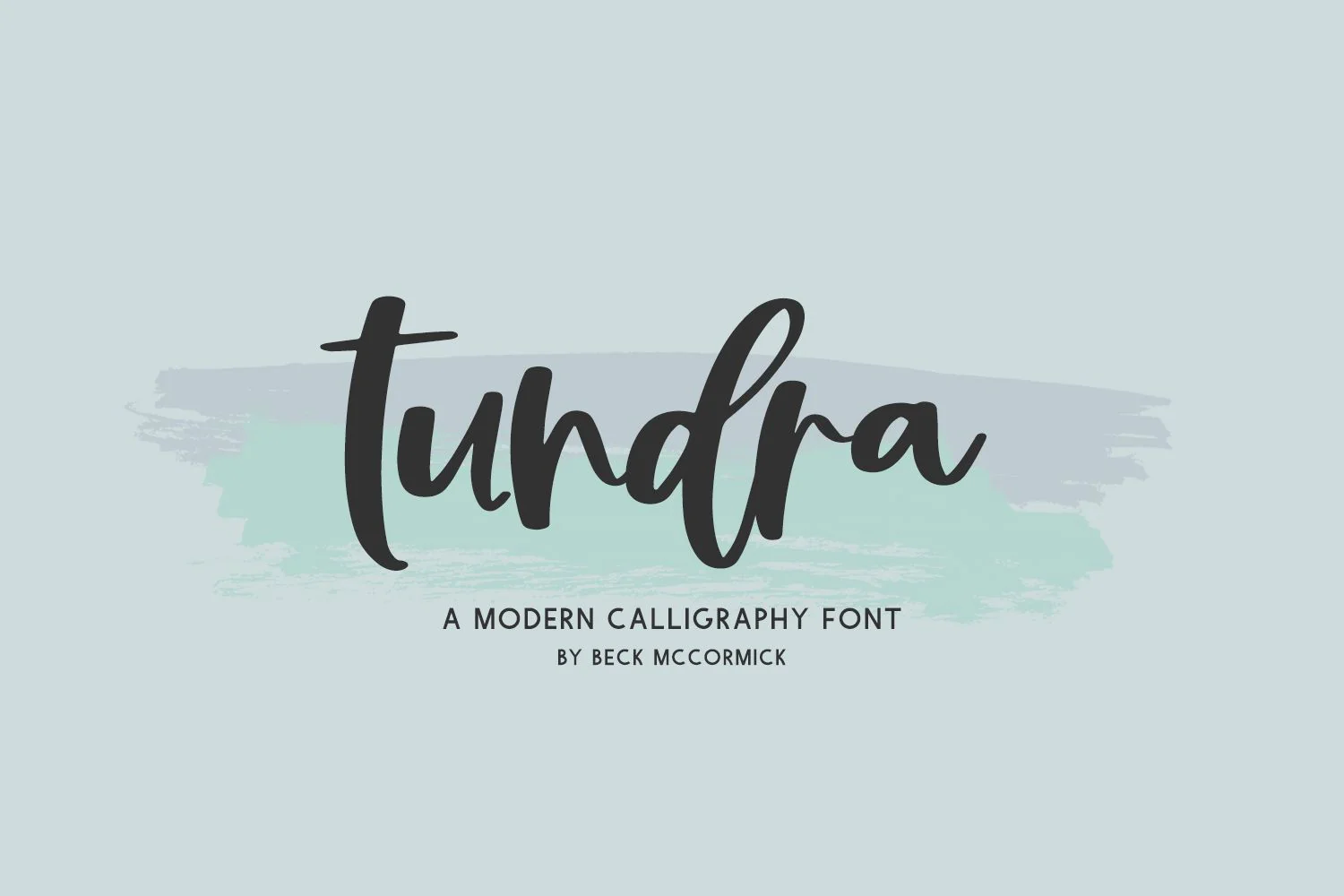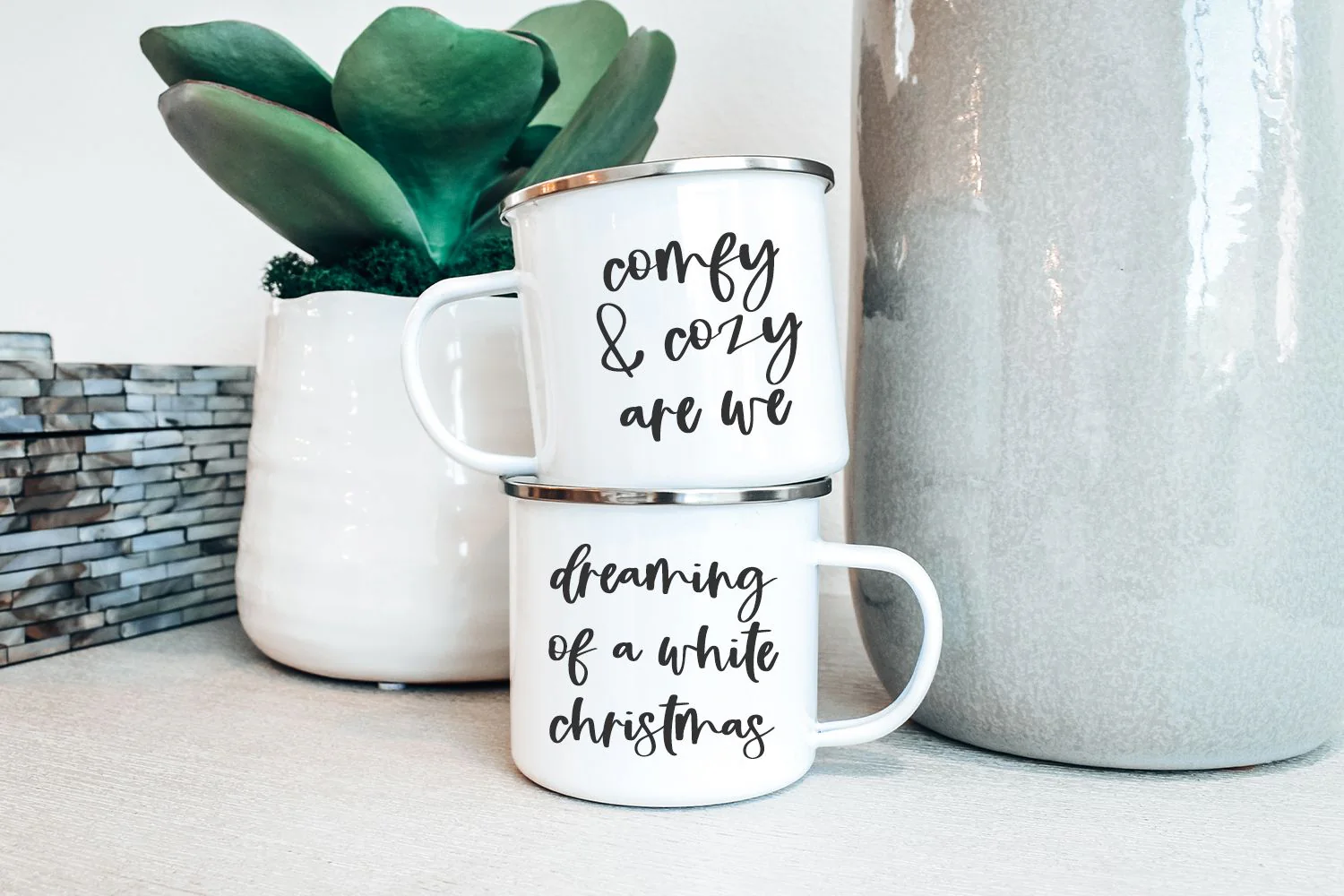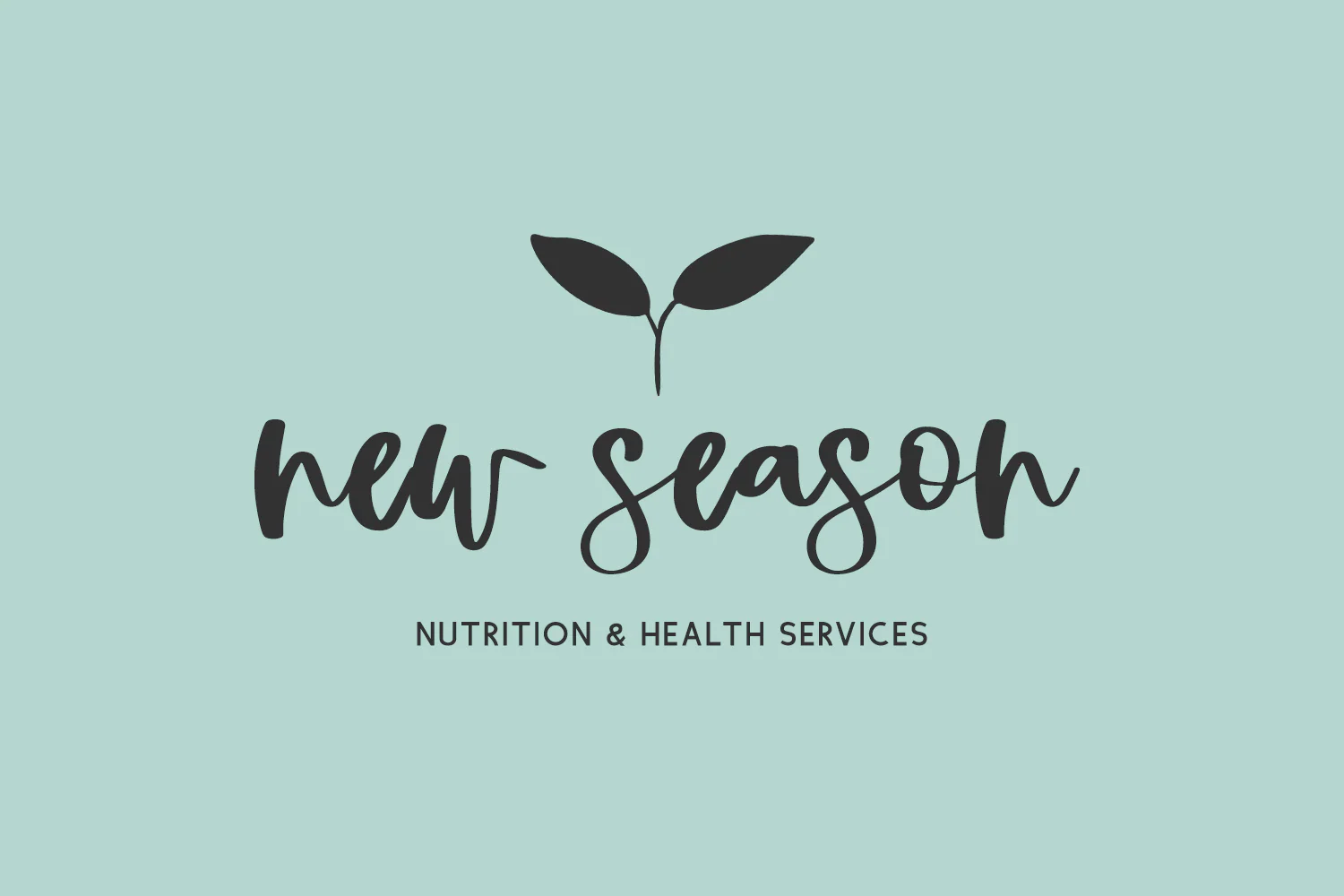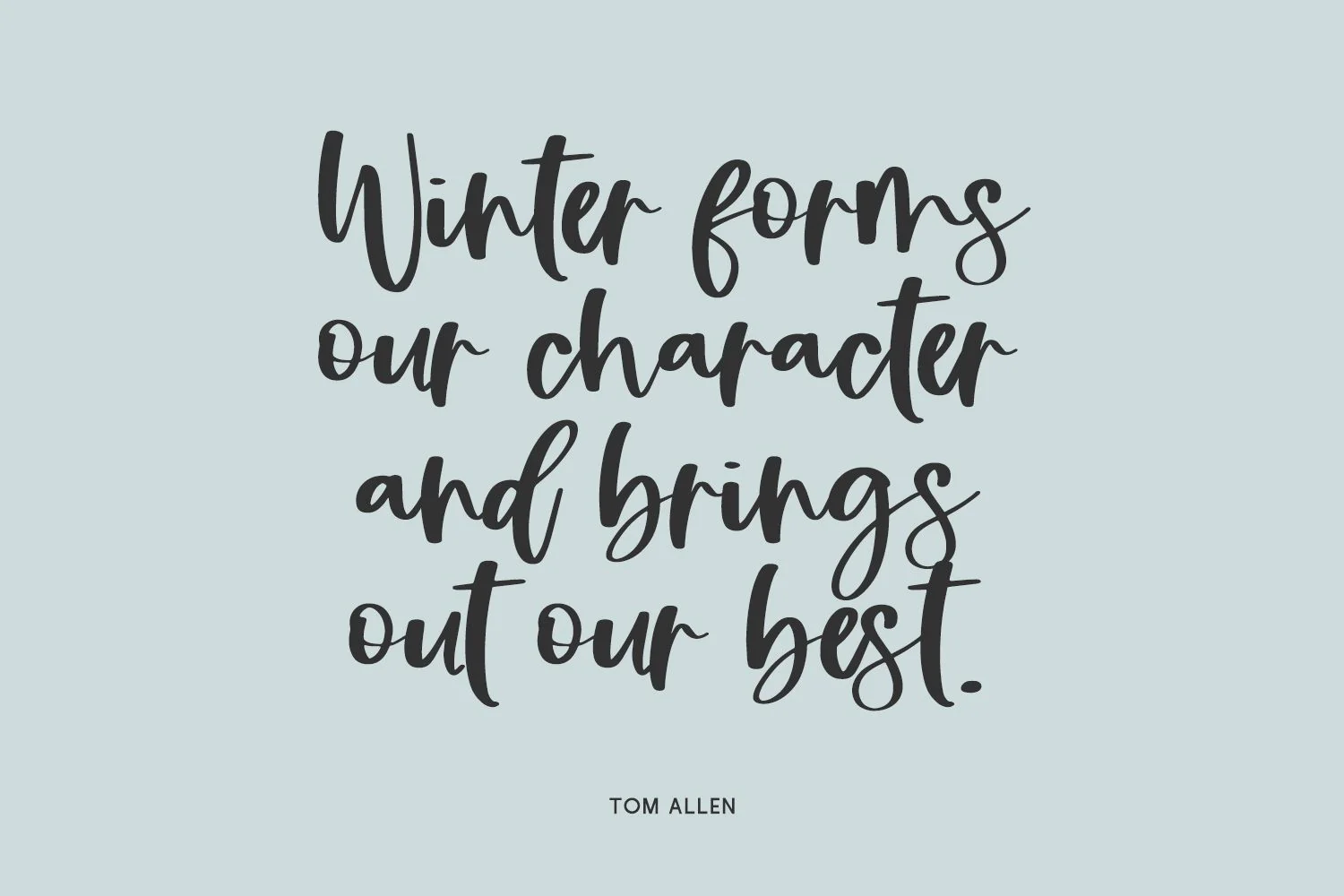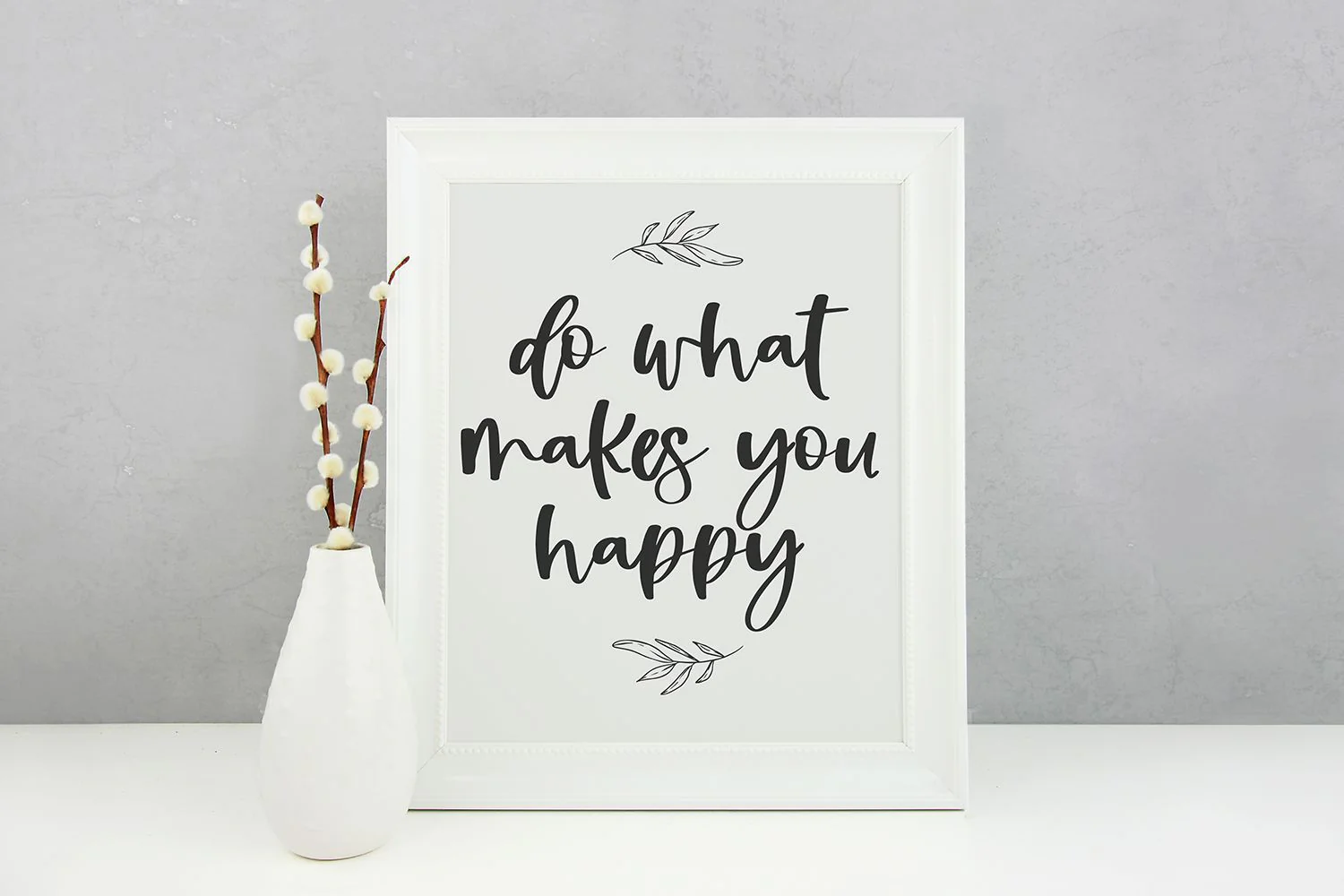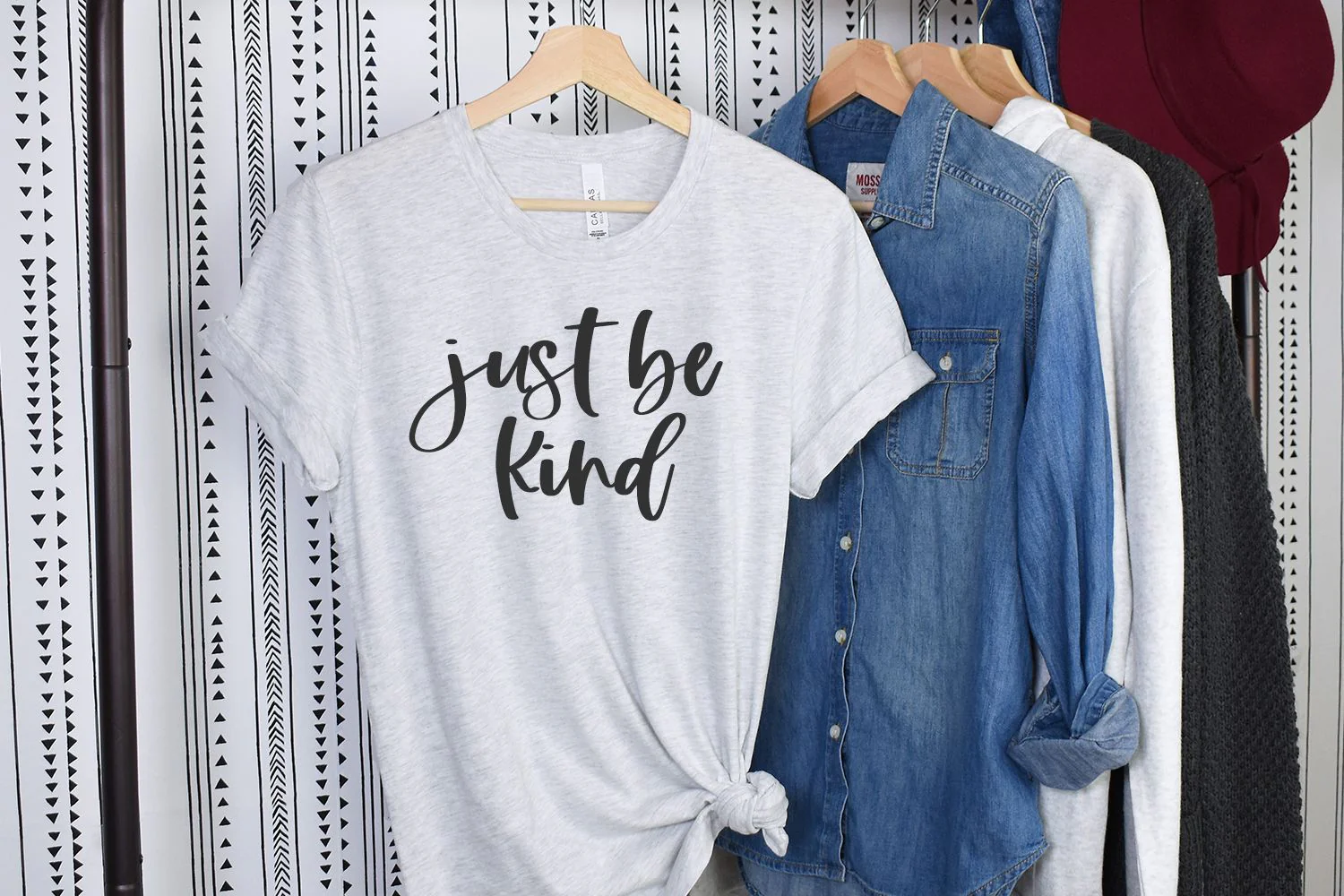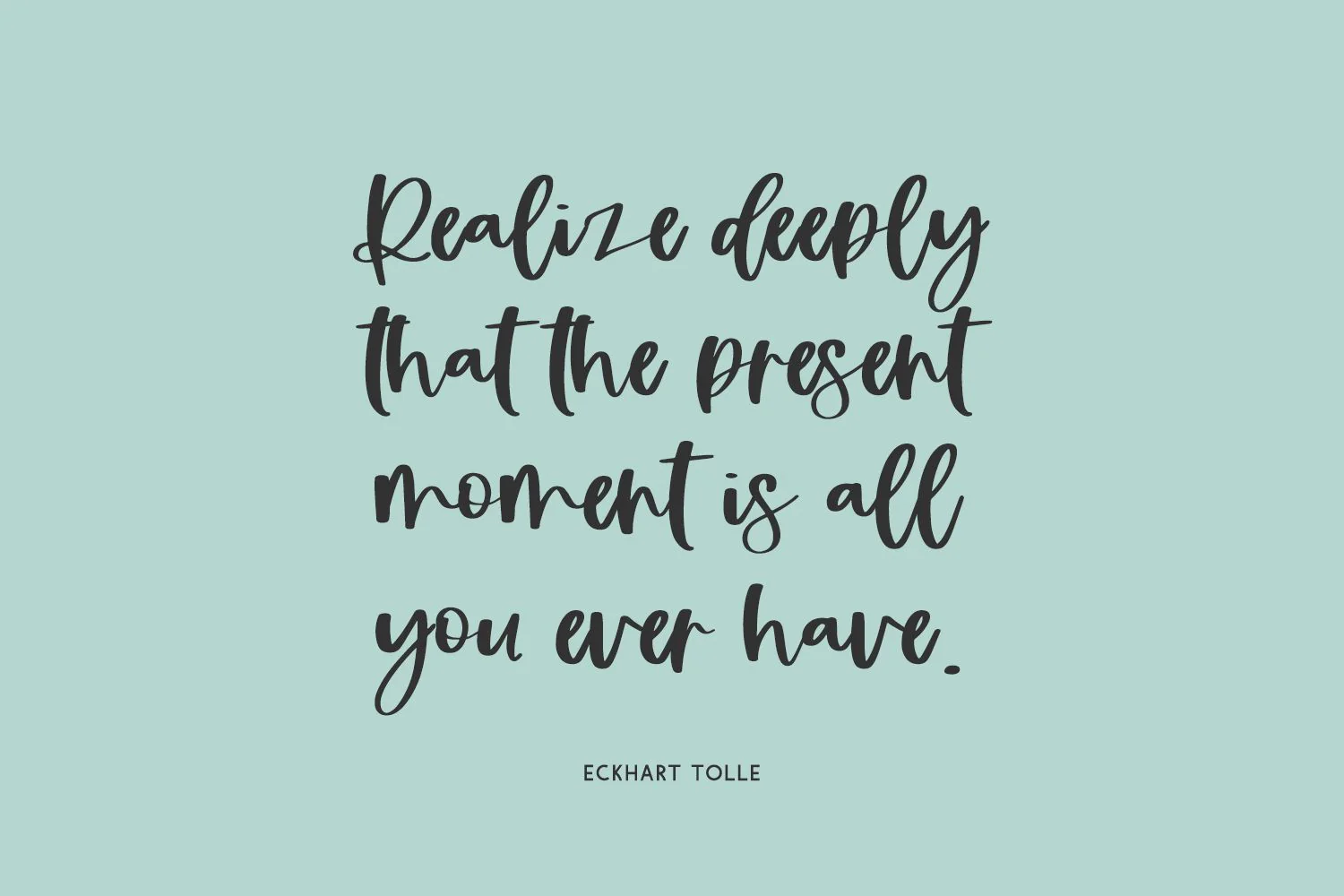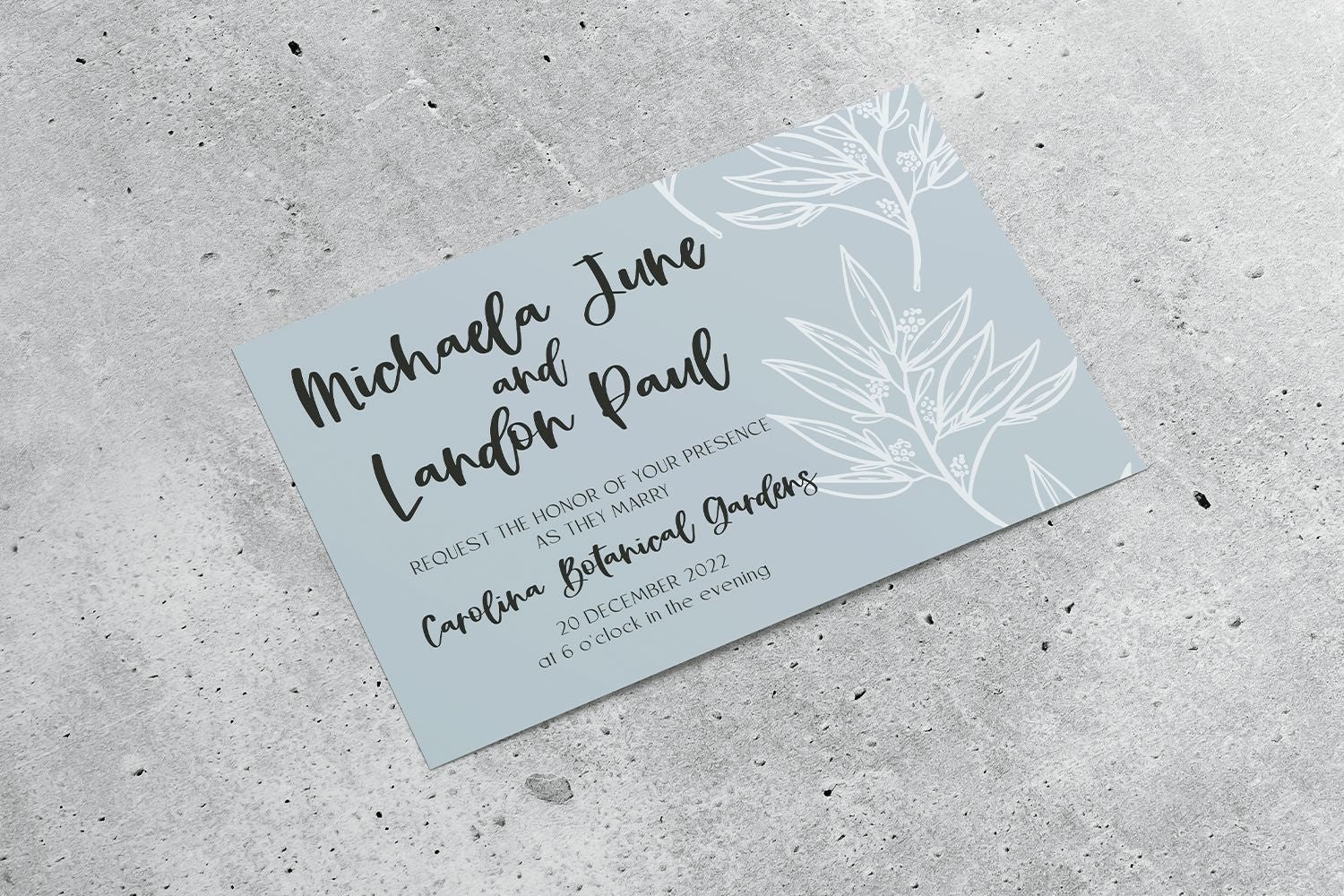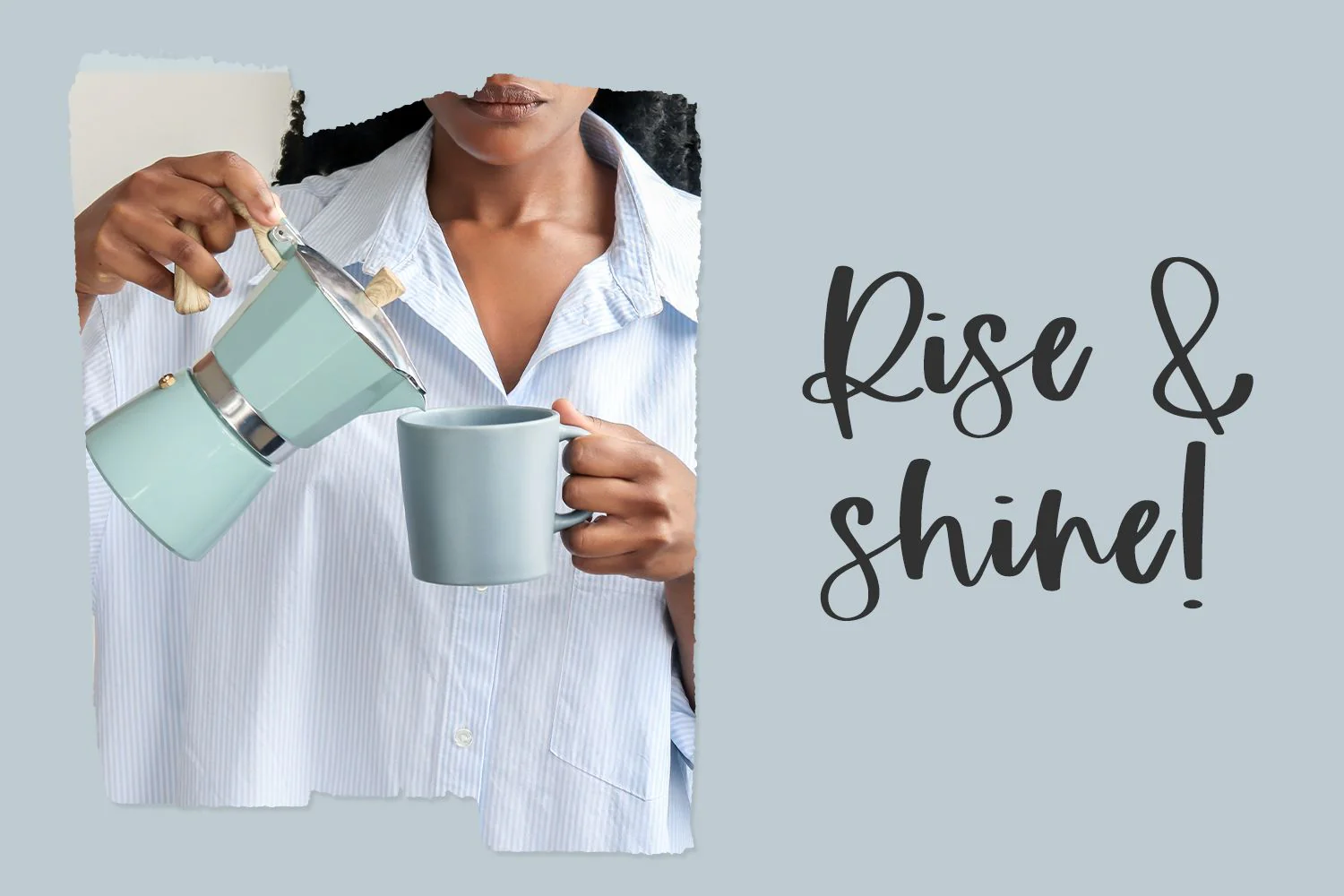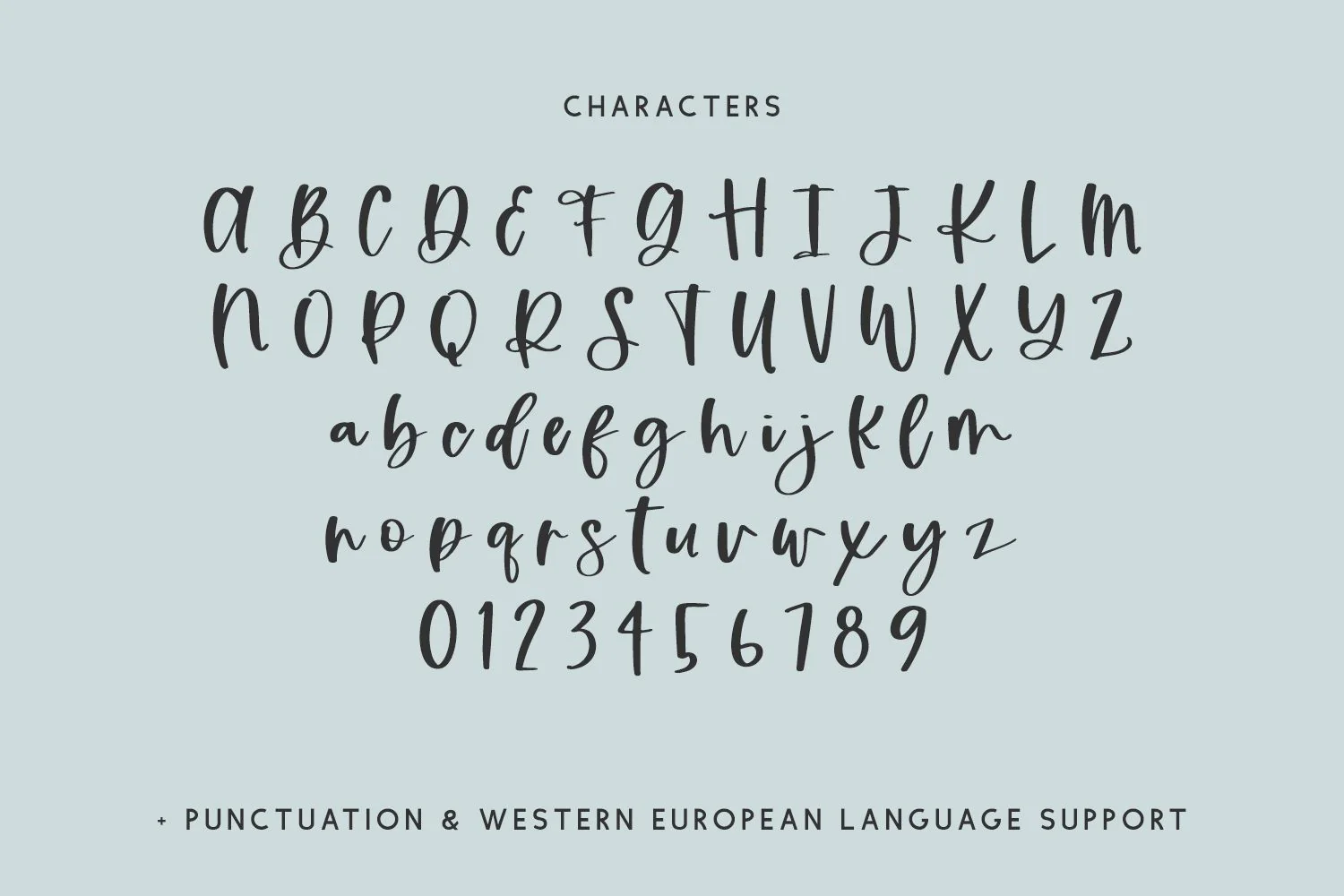
Tundra Script Font
Introducing Tundra, a bouncy modern calligraphy script perfect for crafting & cute farmhouse projects.
Tundra is best for:
- using as a reference to teach handwriting & penmanship skills with a bit of bouncy modern calligraphy flair
- feminine, crafty projects with your Cricut or Silhouette machine, or your SVG design business
- farmhouse decor and crafts
- logos + branding
- digital planners & apps like Goodnotes
- website design + website accents, blog design
- clean print design, like magazines + flyers
- header elements that need handwritten touch
- feminine graphic tee shirt design & other apparel